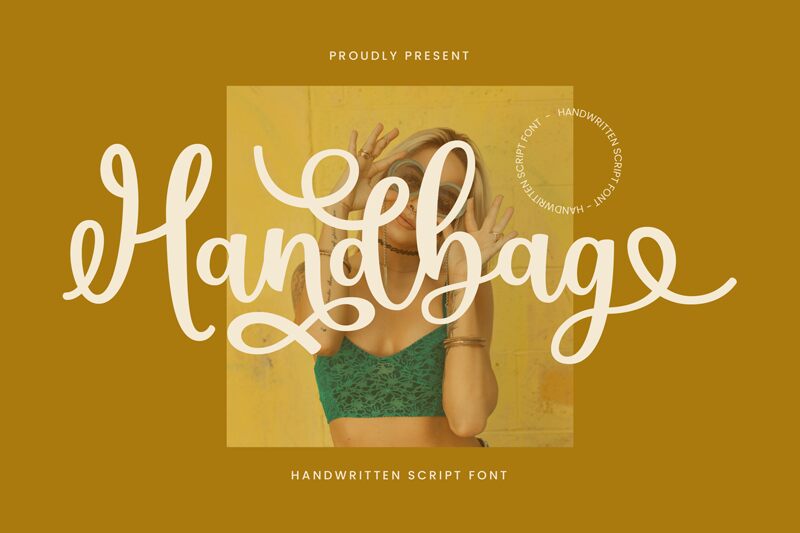
Handbag-Regular
Handbag, crafted by Lettersweet Studio, exemplifies the grace and fluidity of calligraphy in a semi-light font weight. This handwritten font boasts an aesthetic that is as delicate as it is elegant, showcasing well-balanced characters that seem to dance across the page. Its flowing lines and subtle sophistication make it a versatile choice for a myriad of design projects.
Whether you're aiming to infuse a personal touch into wedding invitations or looking to elevate branding materials with its charm, Handbag's ability to breathe life into creative ideas is undeniable. Embrace this font's potential to add a stroke of beauty and personality wherever it graces the canvas.